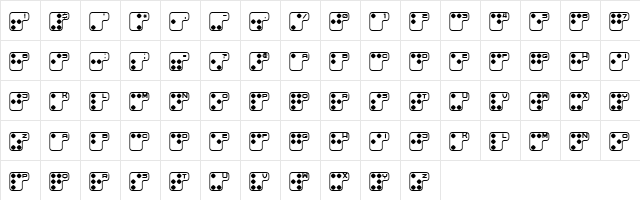
Brailler V3 Light Regular
Design Context for Brailler V3 Light Typeface
Brailler V3 Light takes a measured approach to typography — its balanced proportions and neutral character make it a reliable workhorse for both digital and print work. Its slender proportions lend an understated elegance to any composition.